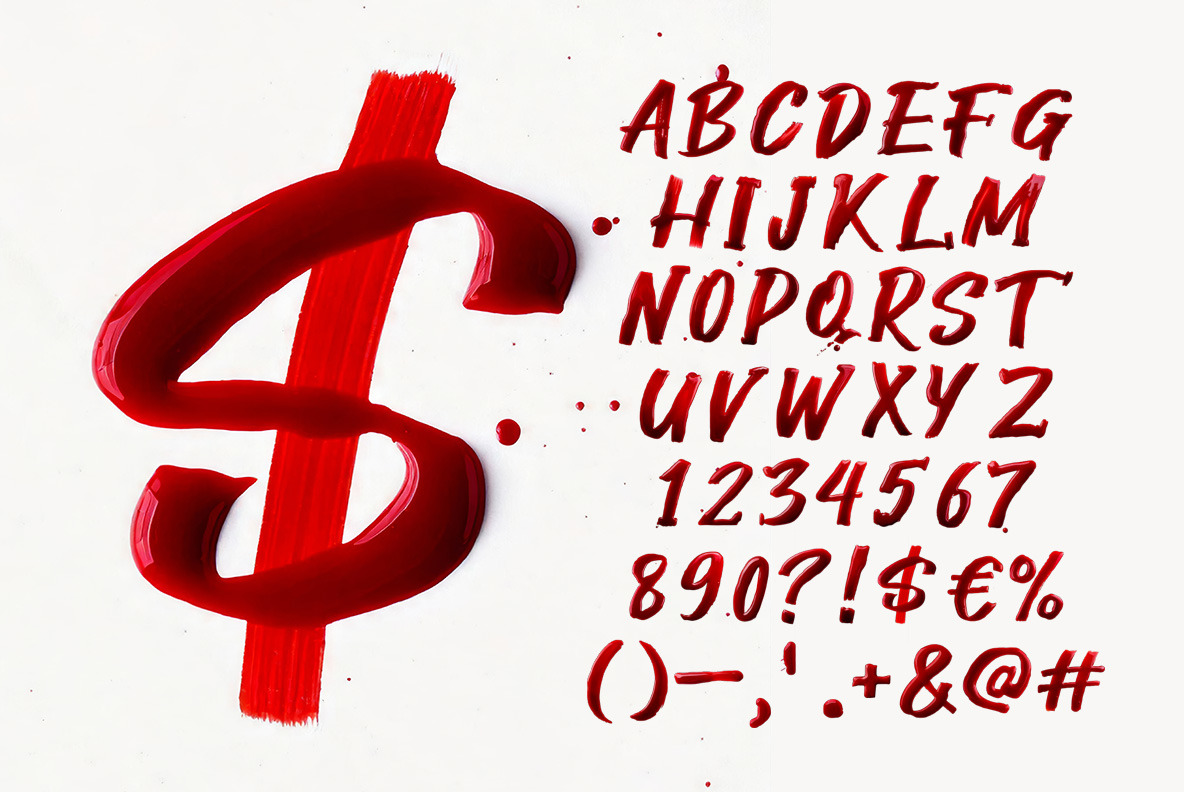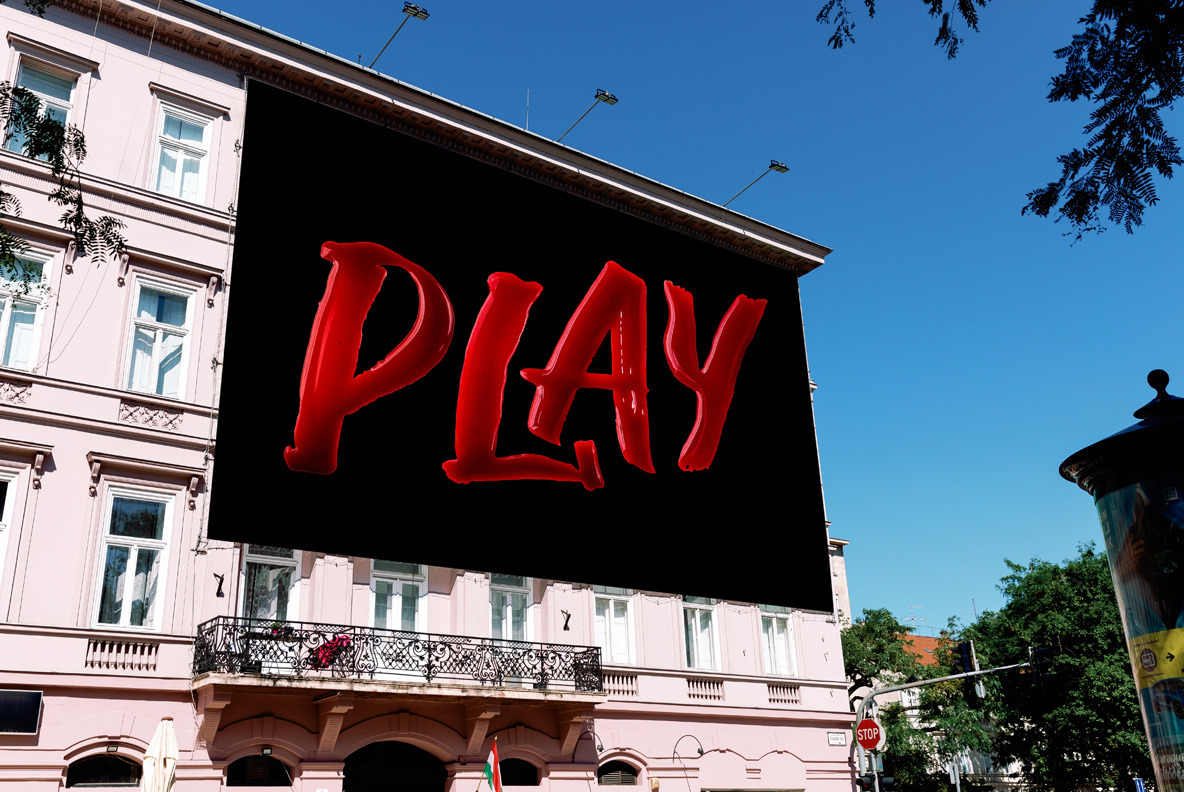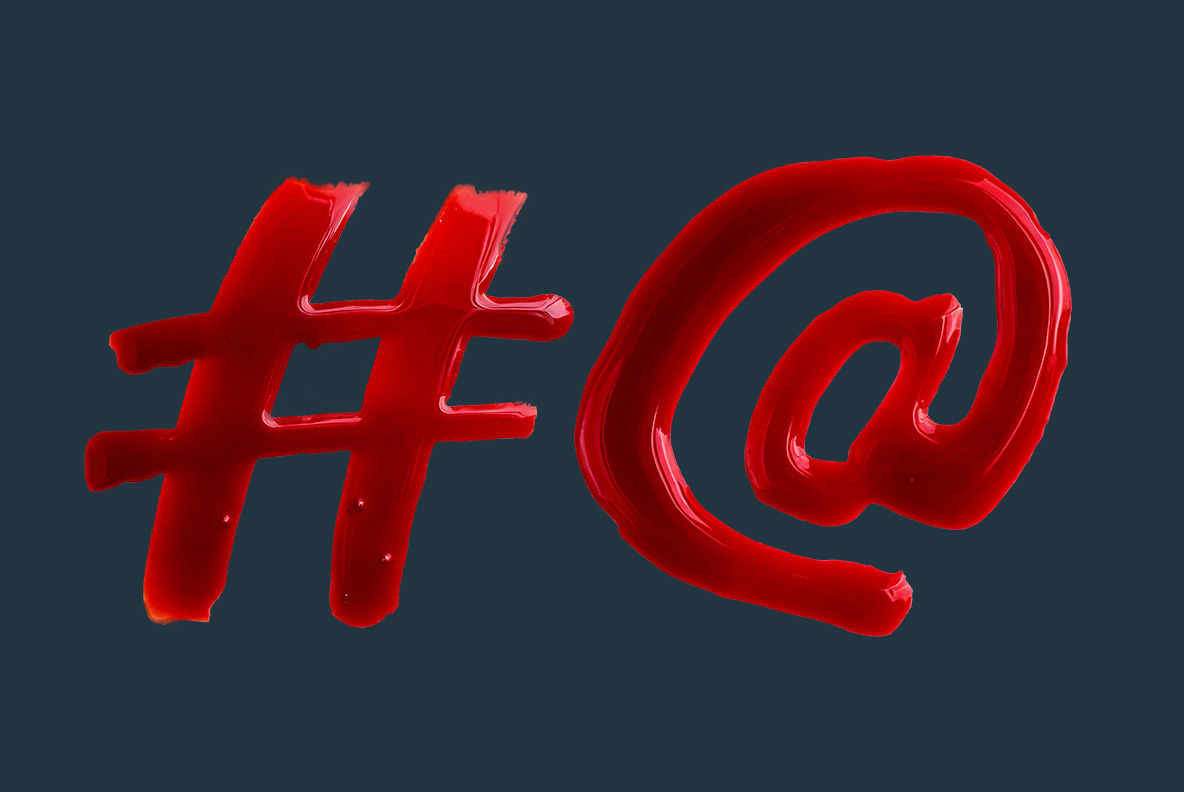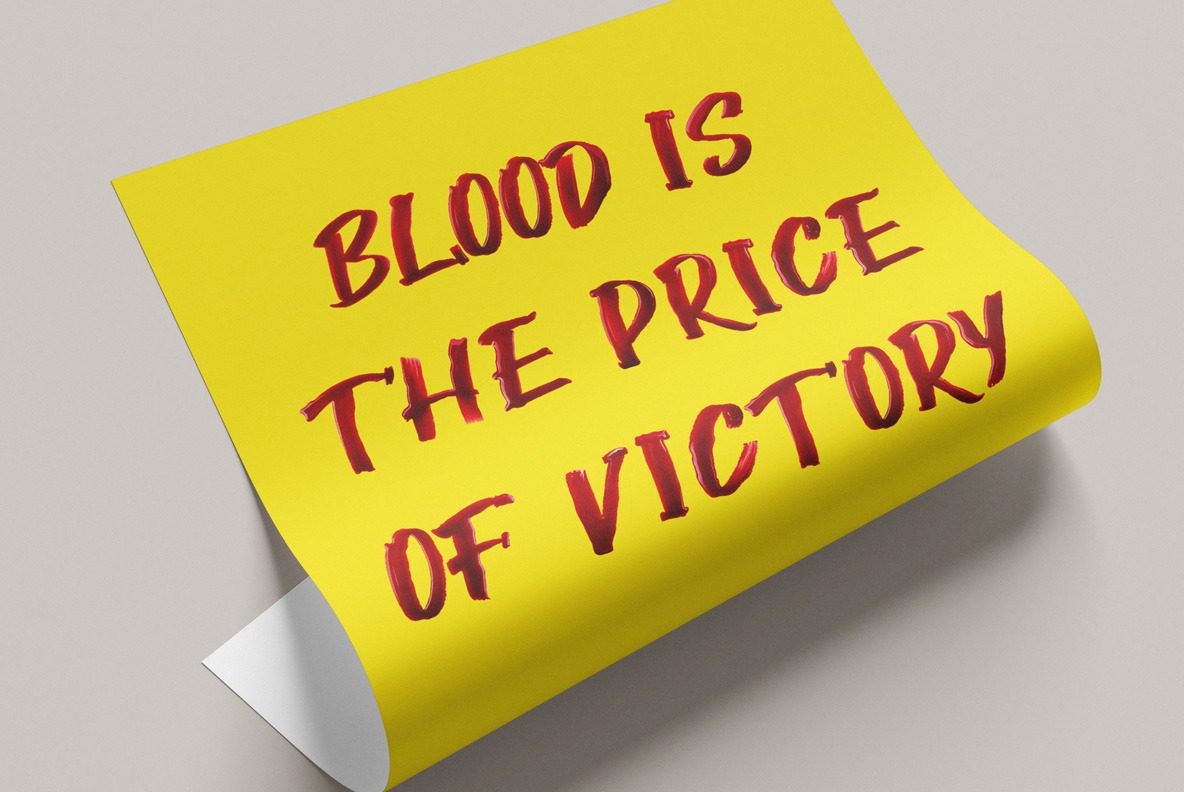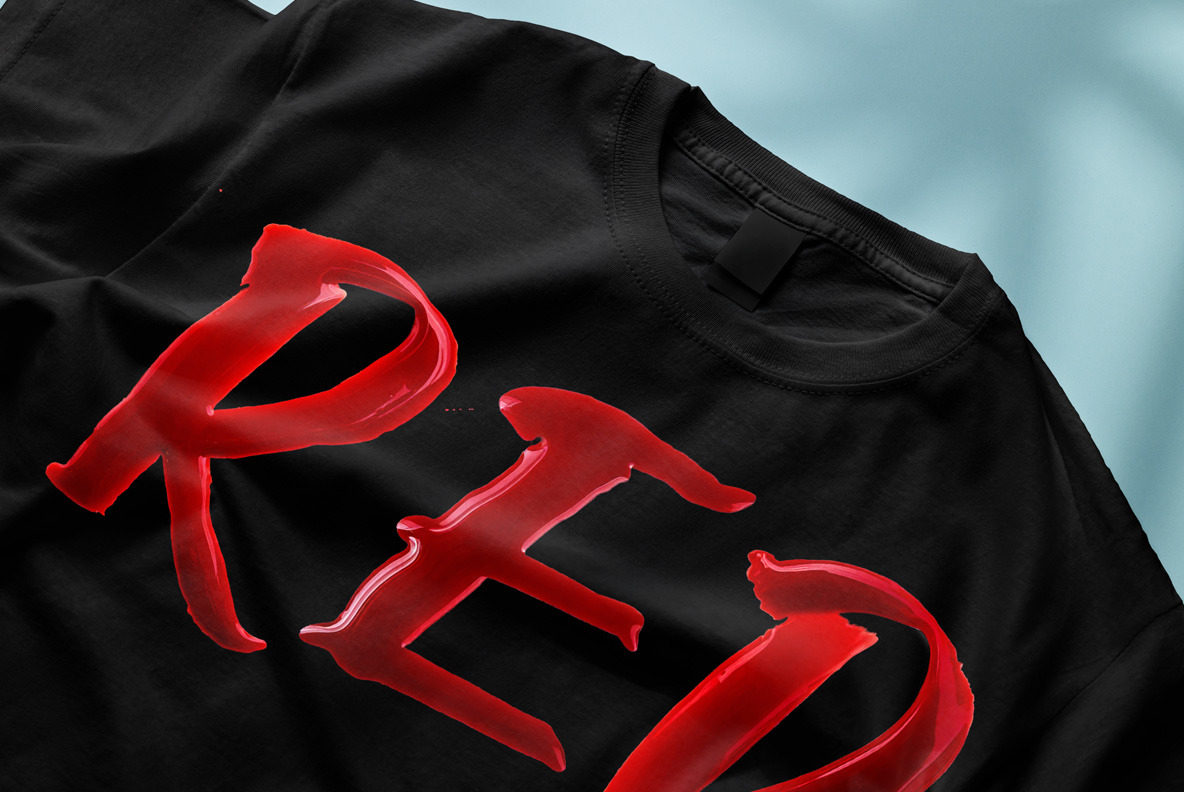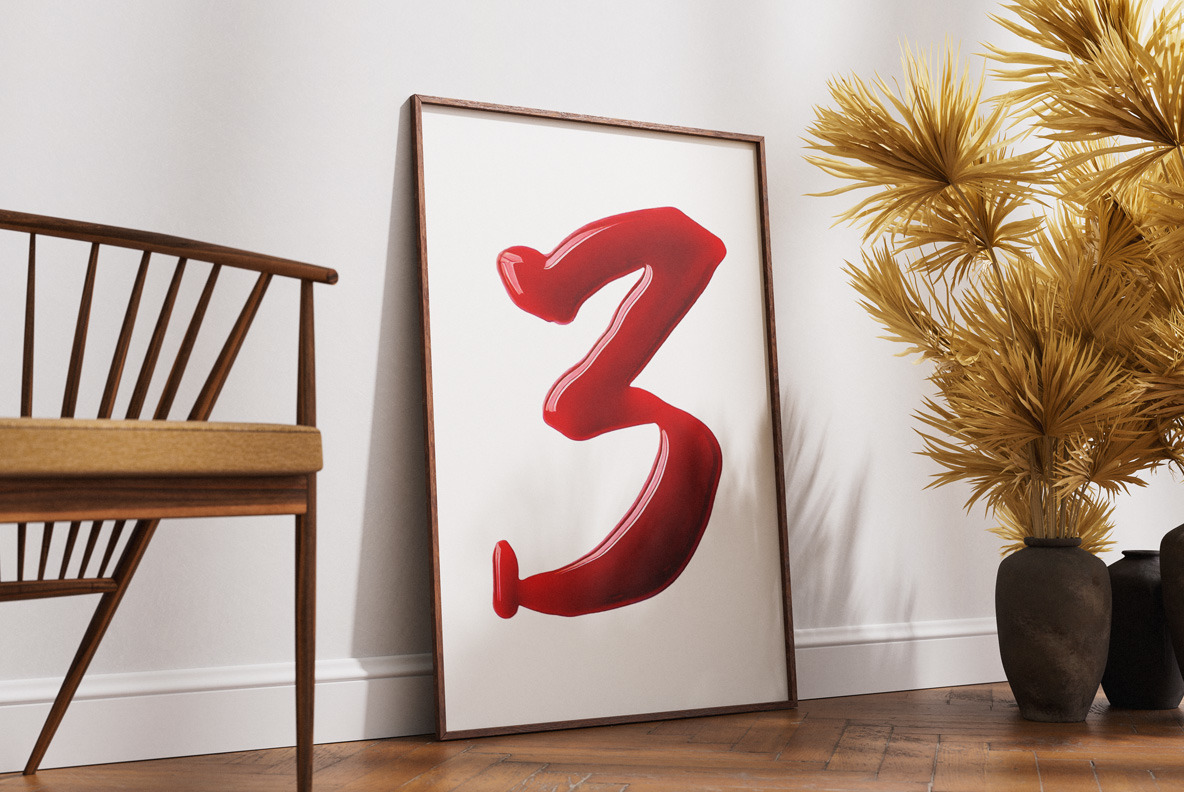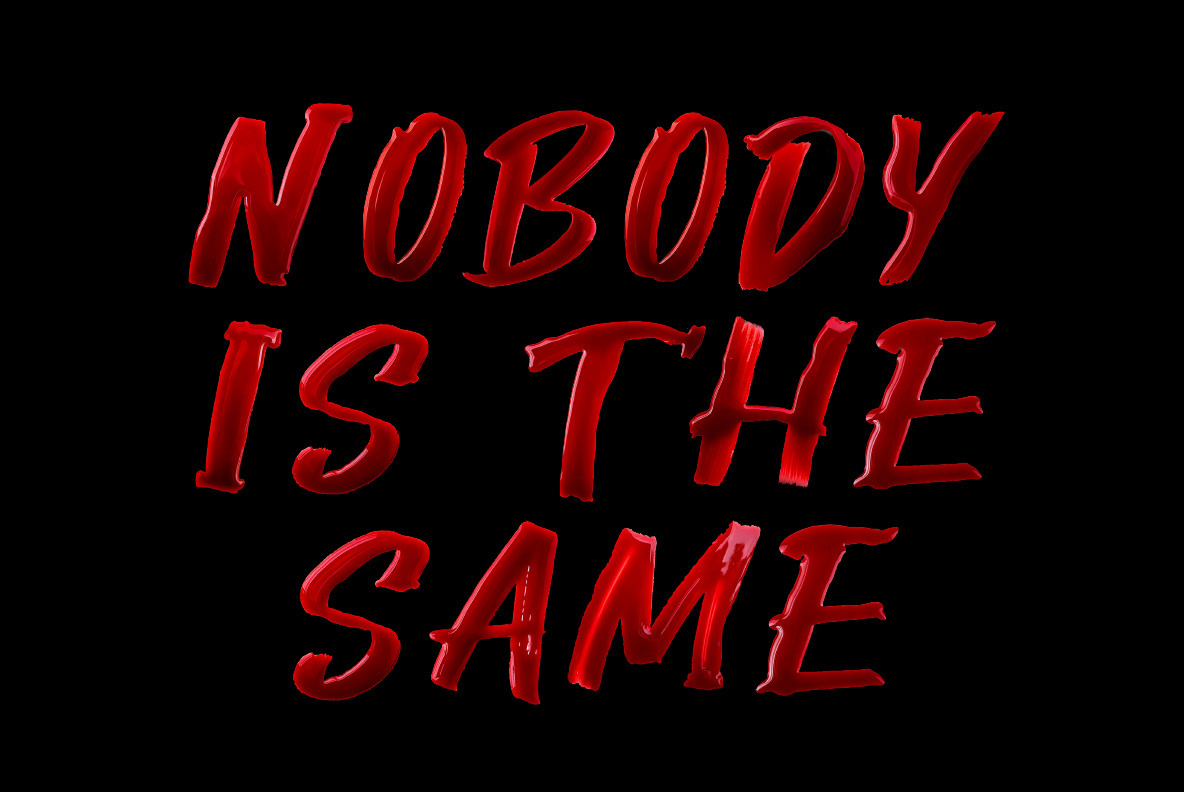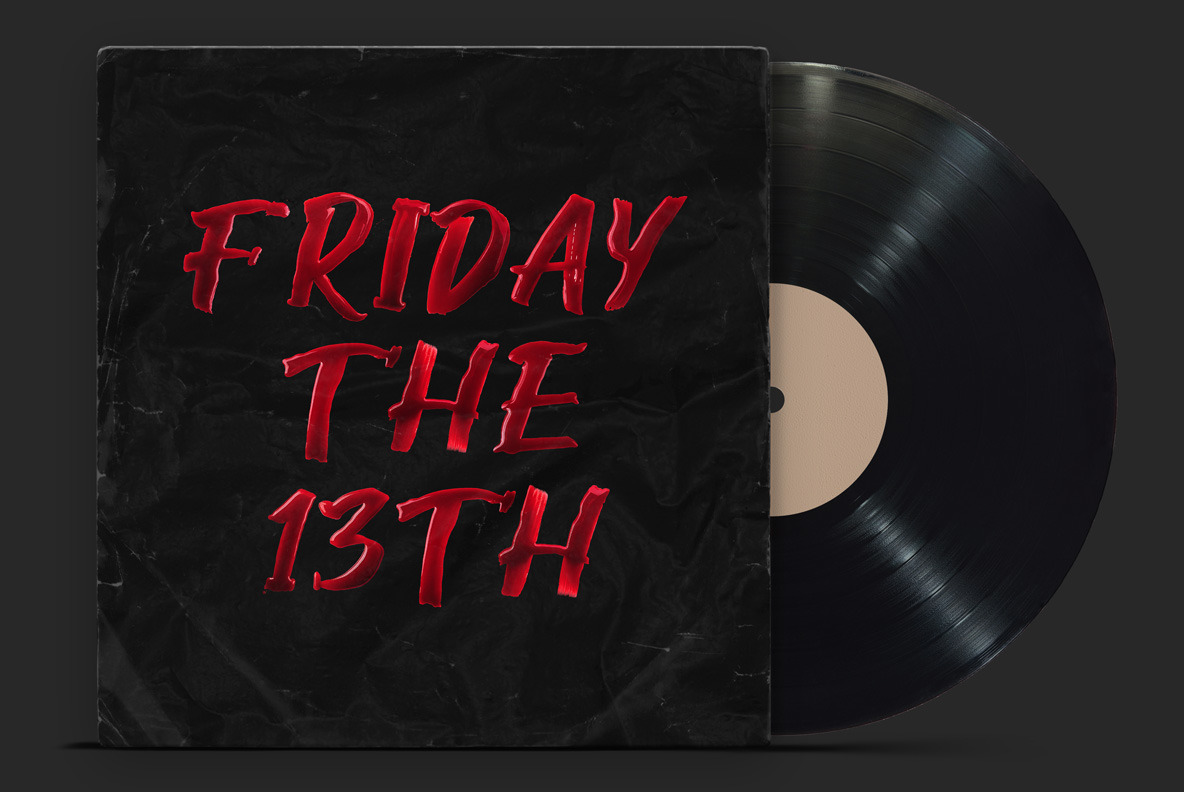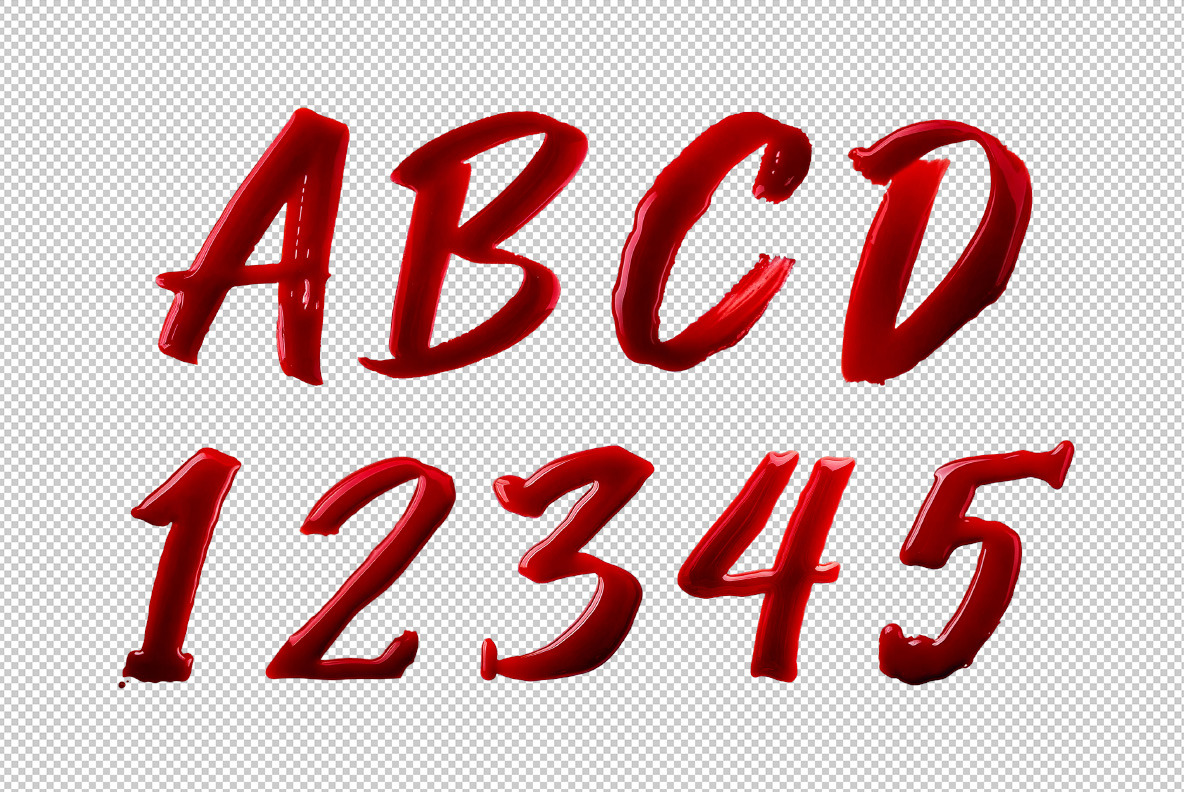
Bloody Font
"Bloody Font" oozes with horror, perfect for Halloween and all things sinister. Dripping in red, it captures the essence of blood, fear, and chilling thrills. Ideal for horror-themed designs, spooky posters, or killer party invites, this font screams terror, leaving a trail of fright wherever it appears. Unleash the darkness!
Bloody Font. A high definition OpenType Font. Contains uppercase characters, numerals and basic punctuation. (Draw height roughly 800 pixels). All letters and glyphs that comprises this font you can see on the preview.